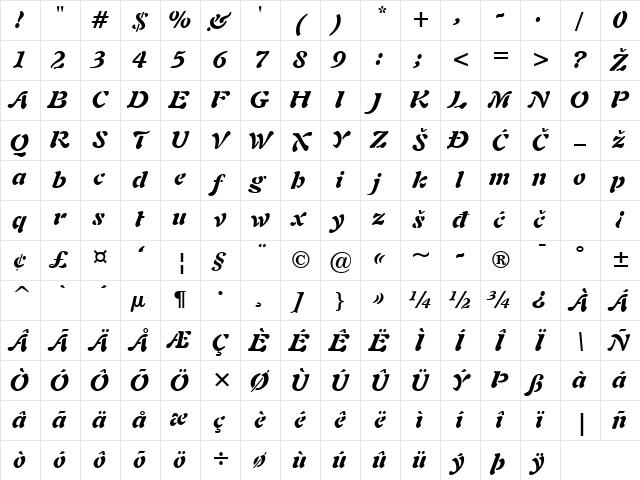
Freeform721Black is a composed and adaptable typeface that performs quietly and consistently across a wide range of design contexts. The slanted form adds forward momentum and visual energy.
Pro Tip: Use Freeform721Black for emphasis, pull quotes, and subheadings where its slanted energy can add rhythm to the layout.